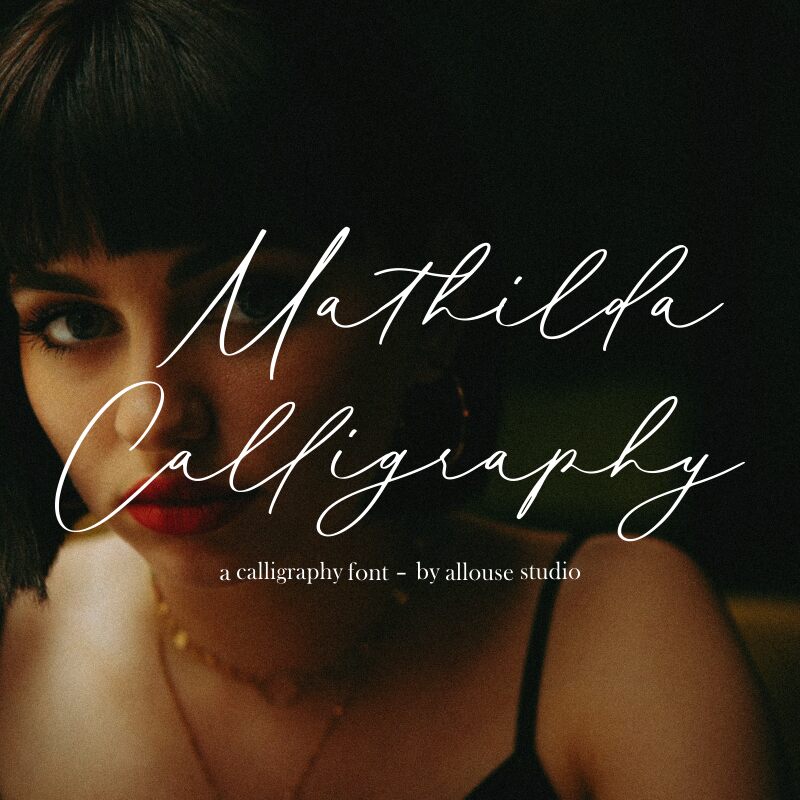
Mathilda Calligraphy font by Allouse Studio is a free handwritten font that brings an artistic and sophisticated touch to your projects. Designed with elegance in mind, this flowing typeface communicates in a contemporary and stylish manner that is suitable for projects that require an exquisite visual language. Graceful, yet expressive, Mathilda is a beautiful fusion of artistic characteristics and modern traits.
The font is notably refined, ideal for use in various design contexts including posters, books, magazines, and brochures. Its elegance particularly shines in digital platforms making it suited for blogs, social media content, or online forums. For packaging designs, wedding invitations, business cards and letters, or any other print projects, Mathilda serves as a lovely addition.